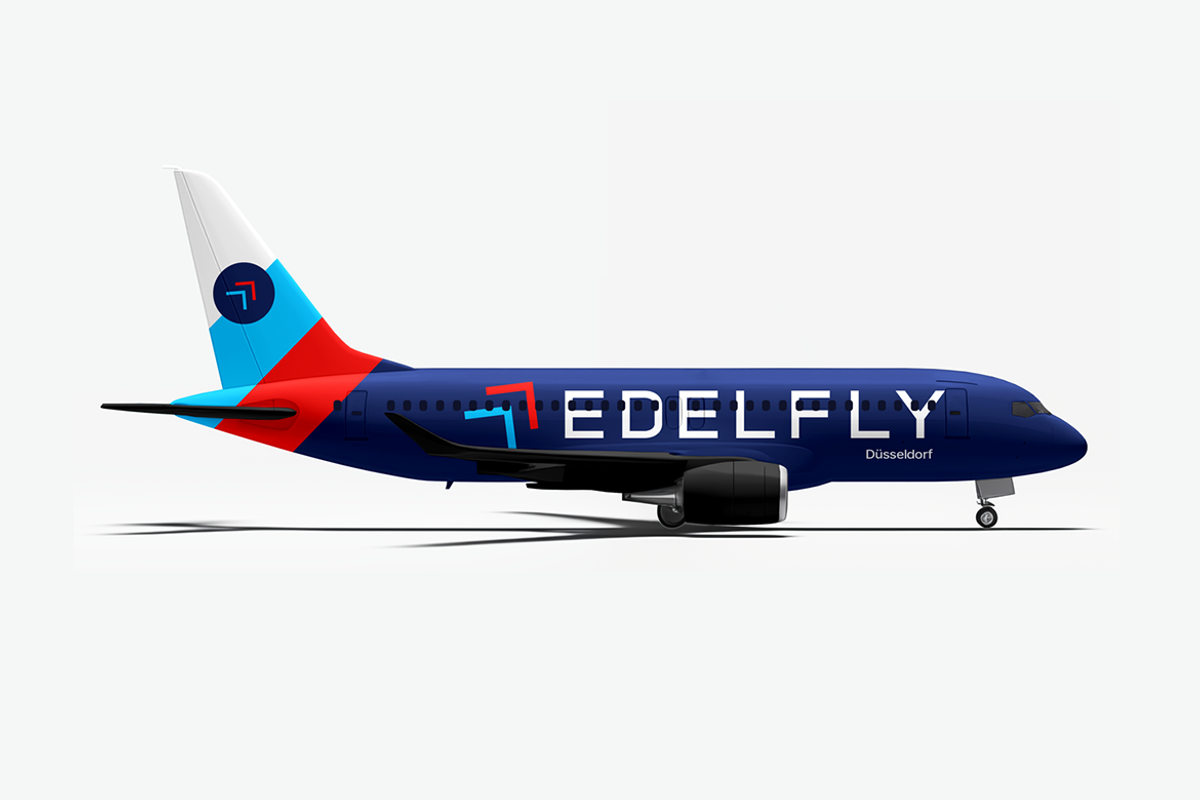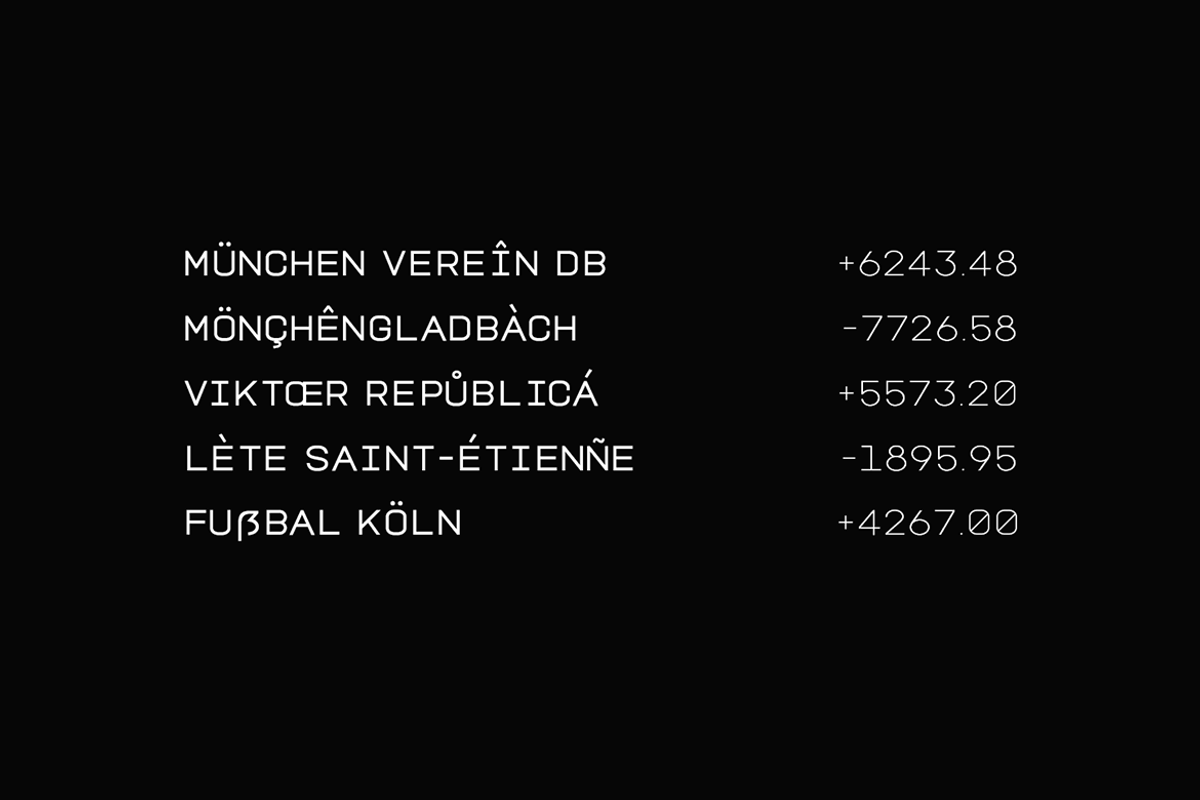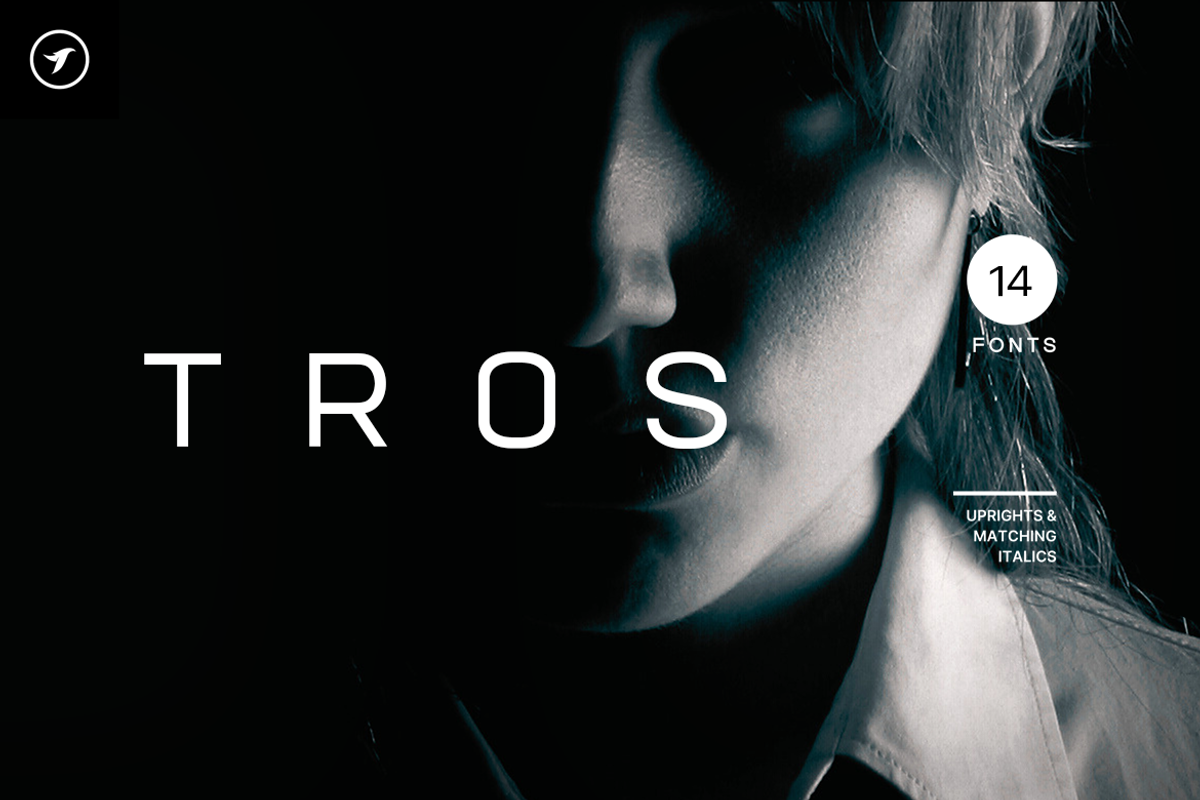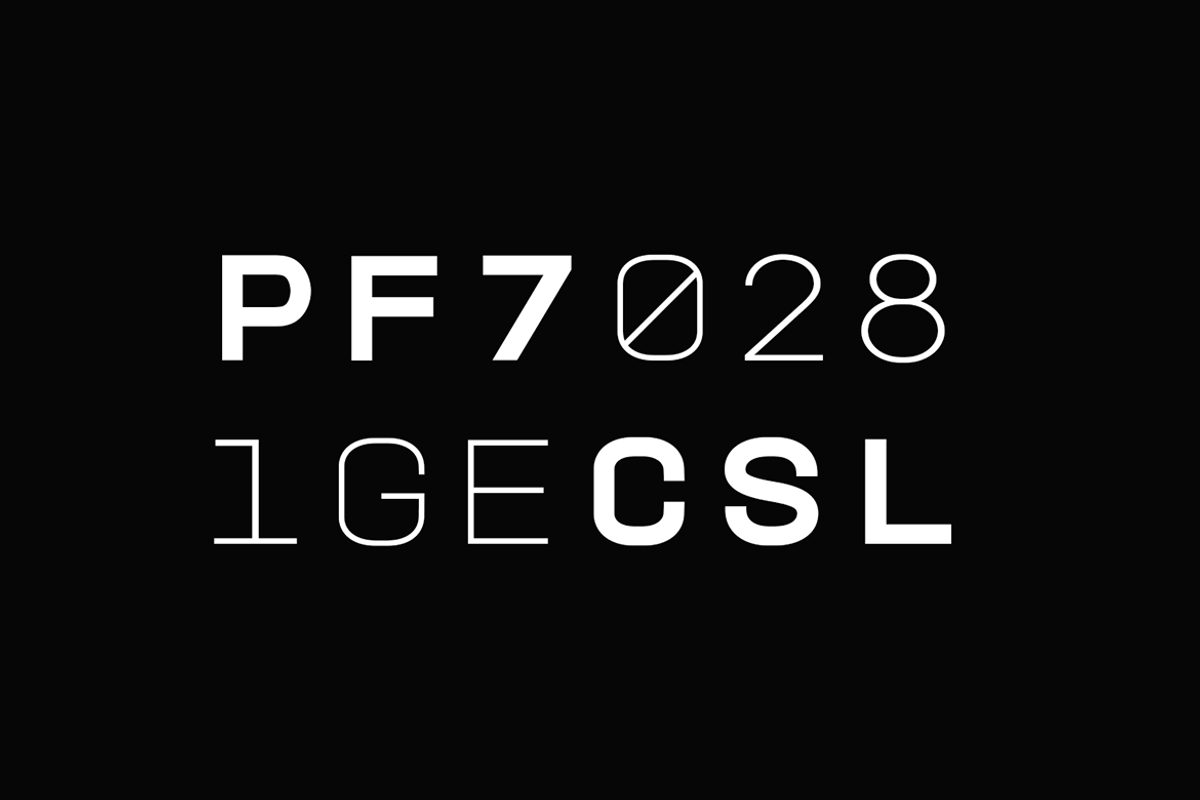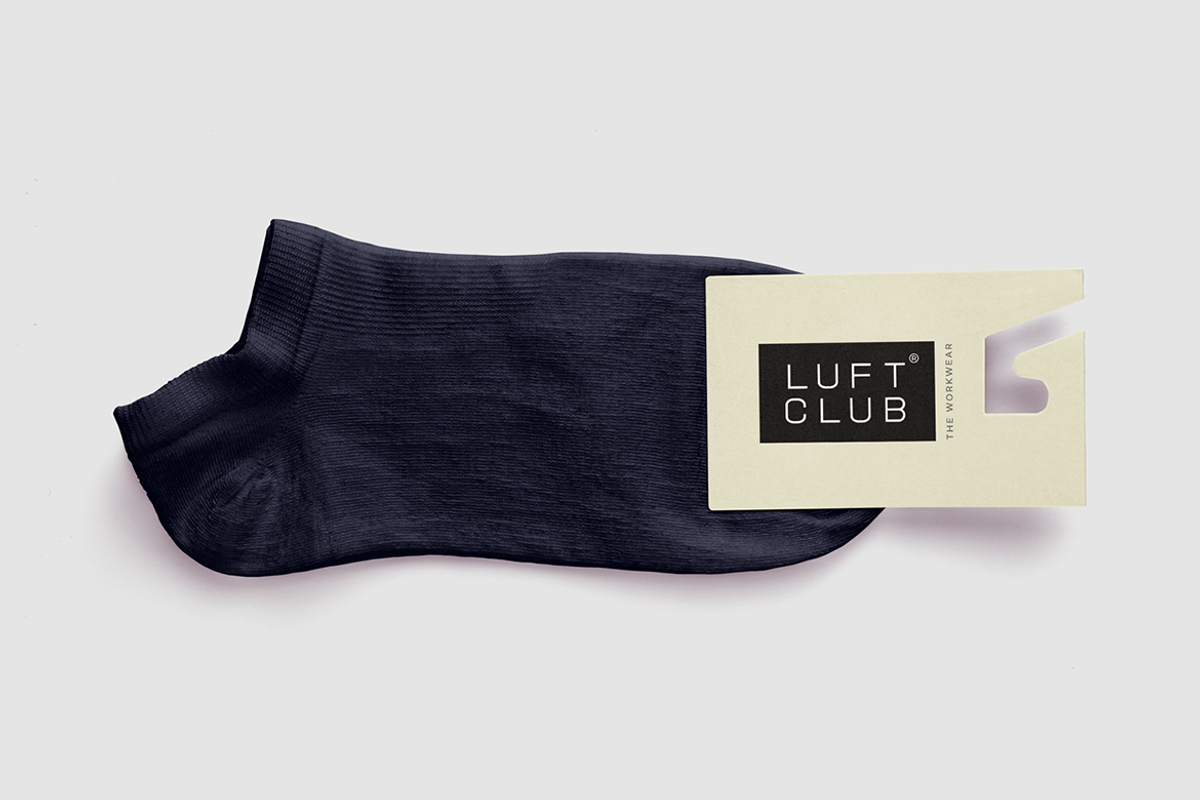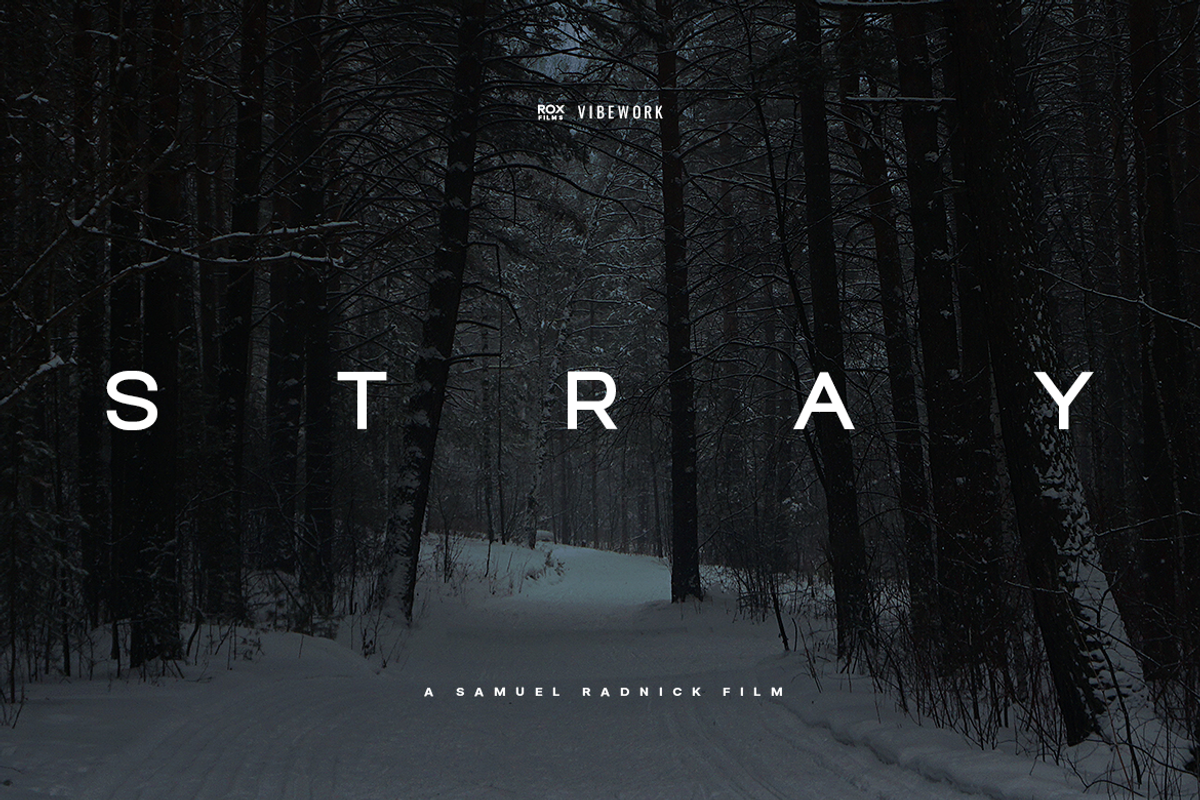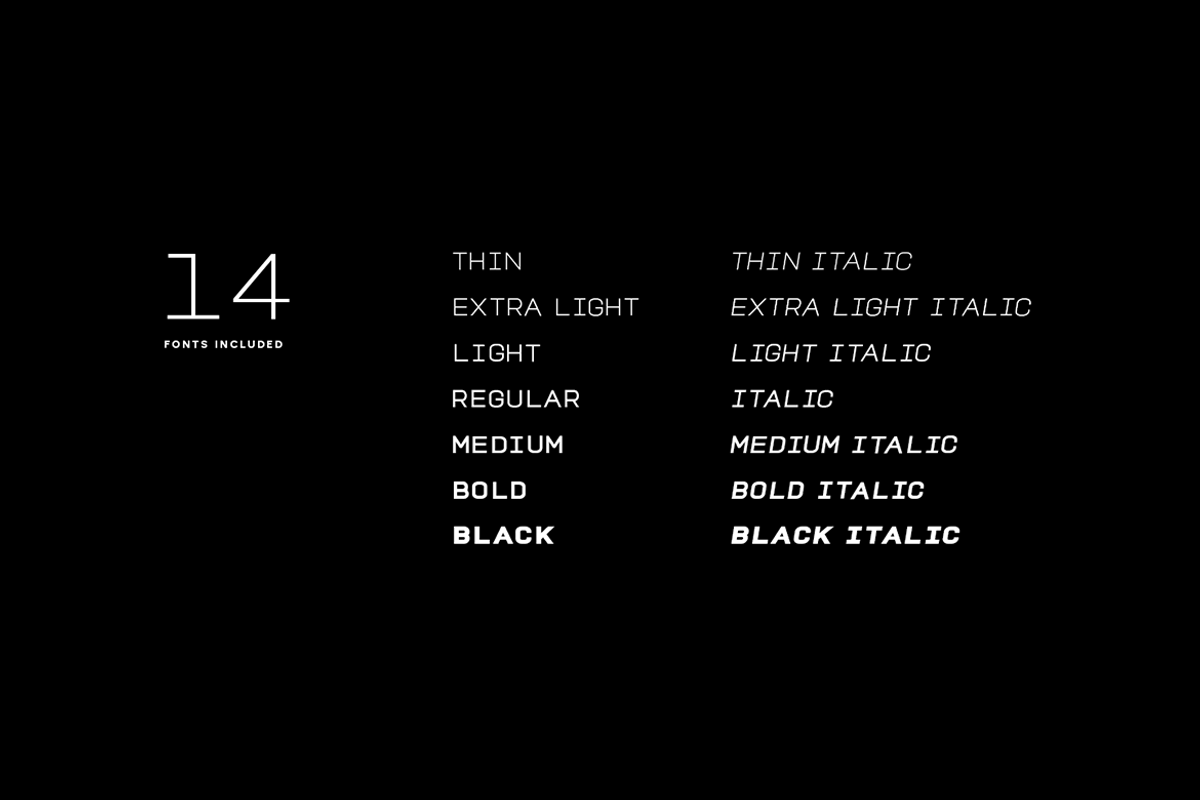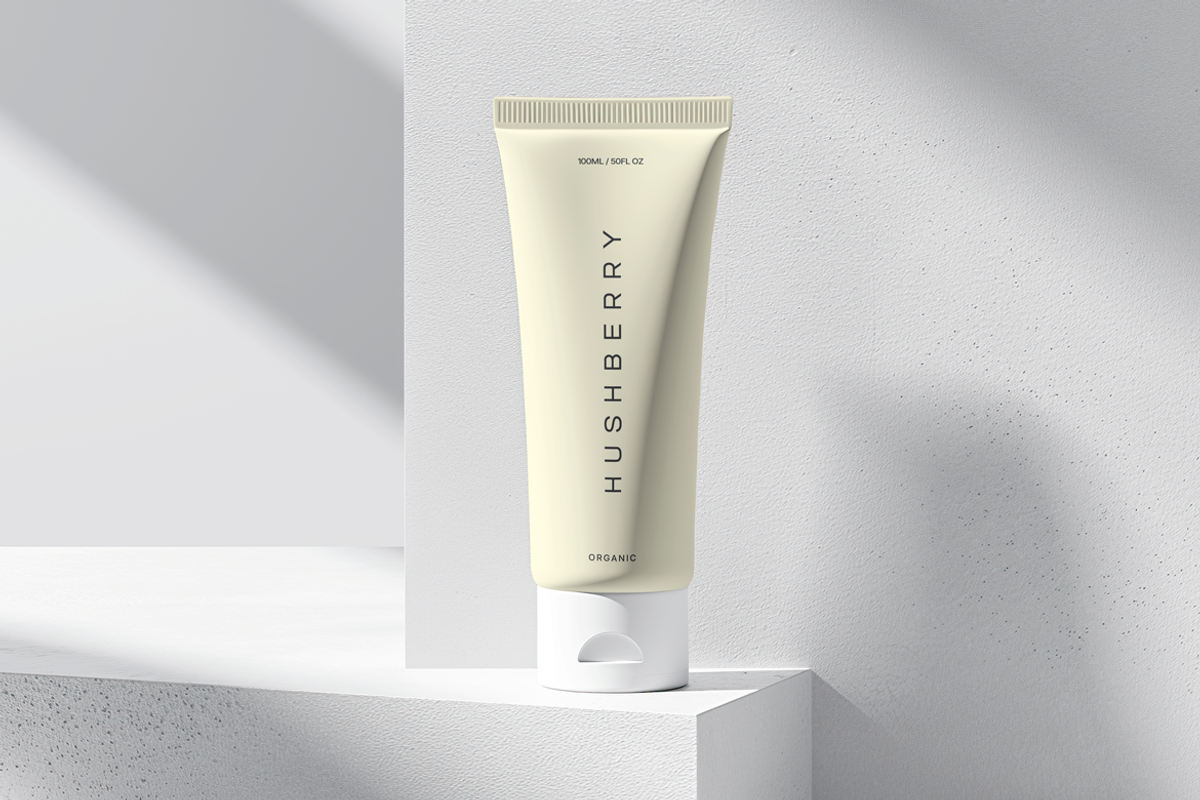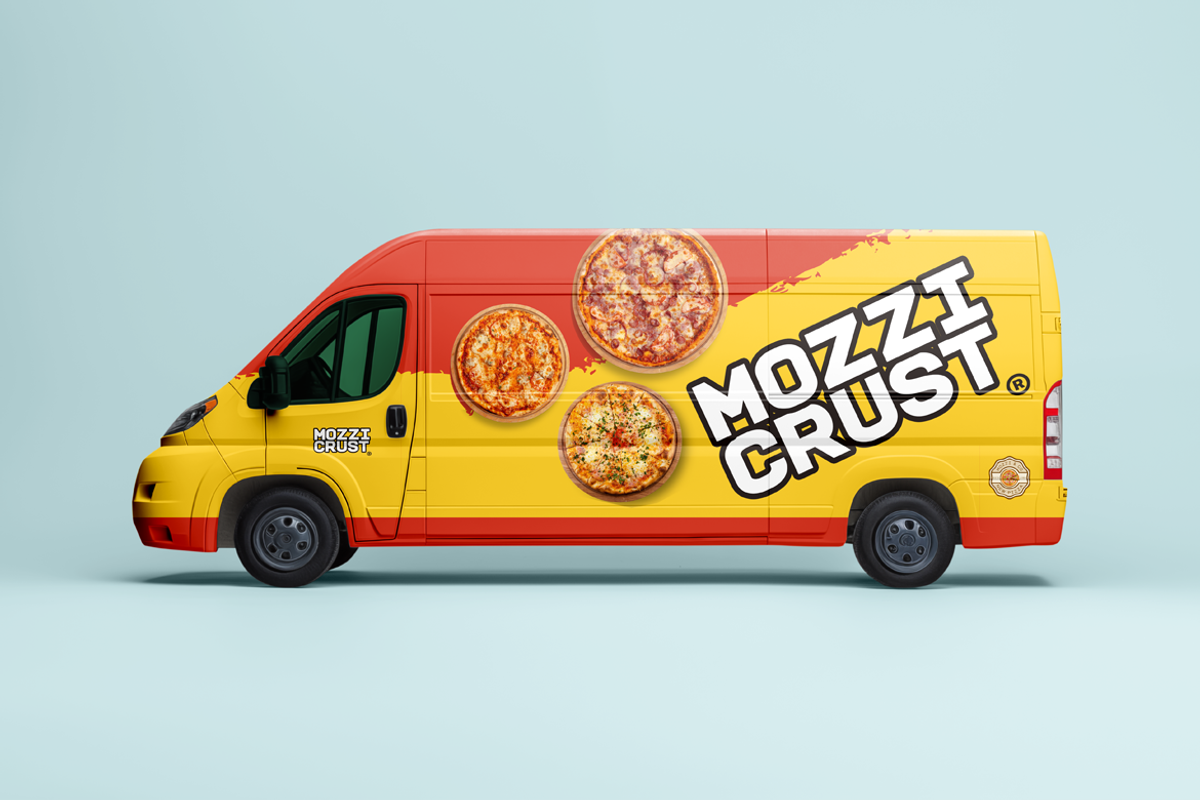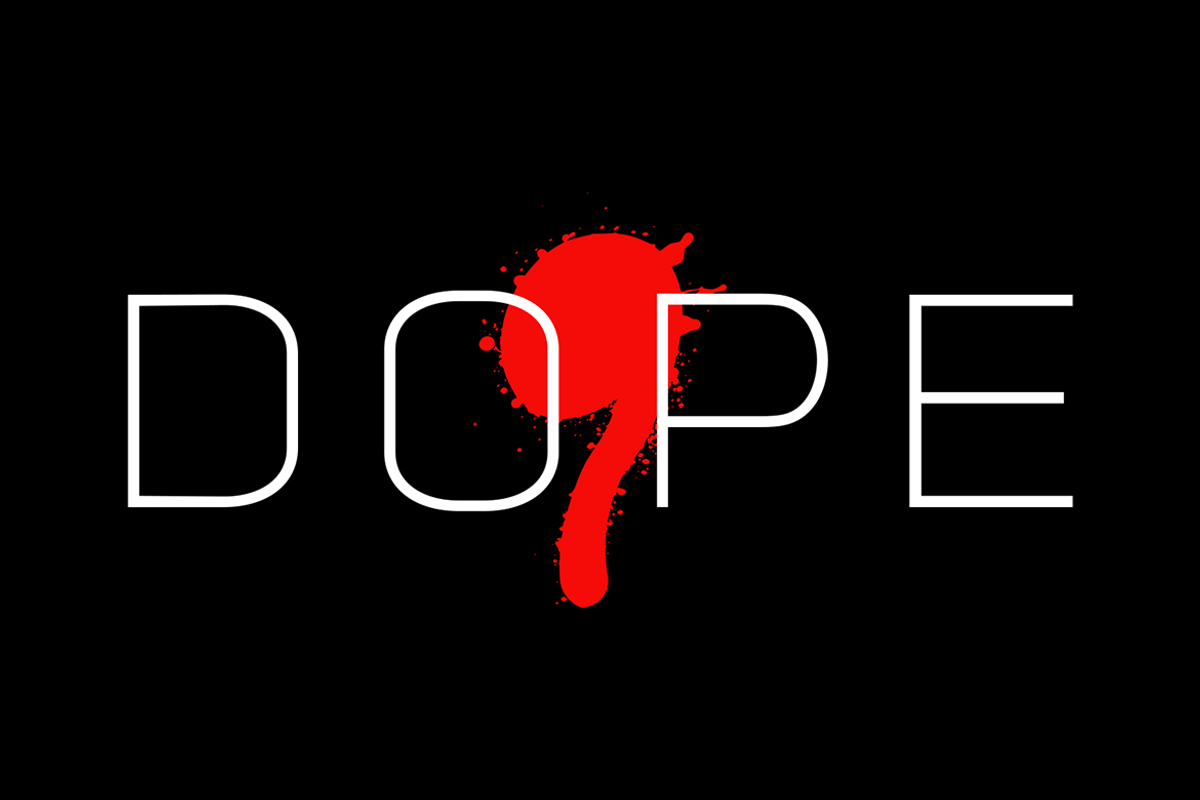
TROS - Unique Display Font Family
ABOUT THE FONT FAMILY:
TROS is a unique and modern font family that features a Sans Serif/Display/All-Caps style. This font family stands out due to its unique and distinctive design. It is best suited for creating branding, logotypes, headlines, corporate identities, and marketing materials for both web and print. When used for minimal designs, TROS is particularly effective.
Thanks to its efficient letter spacing options, this versatile font offers endless possibilities for modern and minimalist designs, including logos, headlines, and identities. Please see the included demo graphics to get an idea about the capability of this typeface when used for branding and marketing material design. To get a better idea of the capabilities of this font, please refer to the included demo graphics.
TROS font family comes with 14 fonts, including five upright weights (THIN / EXTRA LIGHT / REGULAR / MEDIUM / BOLD / BLACK) as well as Italic versions of all five weights. Each weight includes extended language support including Western European & Central European sets. A total of 250 glyphs are included.
TROS font family includes a collection of 14 fonts in total, with seven upright weights and Italic equivalents of all seven weights as follows:
- Thin
- Thin Italic
- ExtraLight
- ExtraLight Italic
- Light
- Light Italic
- Italic
- Medium
- Medium Italic
- Bold
- Bold Italic
- Black
- Black Italic
250 GLYPHS INCLUDED:
Handcrafted and designed with powerful OpenType features in mind, each weight includes extensive language support with Western European, Central European, and South Eastern European sets. A total of 250 glyphs are available.
EXTENSIVE LANGUAGE SUPPORT:
Afrikaans • Albanian • Asu • Basque • Bemba • Bena • Catalan • Cebuano • Chiga • Cornish • Corsican • Danish • Dutch • English • Estonian • Filipino • Finnish • French • Friulian • Galician • German • Gusii • Ido • Indonesian • Interlingua • Interlingue • Irish • Italian • Javanese • Jju • Kabuverdianu • Kalaallisut • Kalenjin • Kinyarwanda • Kurdish • Ligurian • Lojban • Lombard • Low German • Luo • Luxembourgish • Luyia • Machame • Makhuwa • Makhuwa-Meetto • Makonde • Malagasy • Malay • Manx • Morisyen • North Ndebele • Northern Sotho • Norwegian Bokmål • Norwegian Nynorsk • Nyanja • Nyankole • Occitan • Oromo • Portuguese • Rejang • Romansh • Rombo • Rundi • Rwa • Samburu • Sango • Sangu • Sardinian • Scottish Gaelic • Sena • Shambala • Shona • Soga • Somali • South Ndebele • Southern Sotho • Spanish • Sundanese • Swahili • Swati • Swedish • Swiss German • Taita • Taroko • Teso • Tsonga • Tswana • Vunjo • Walloon • Welsh • Western Frisian • Wolastoqey • Xhosa • Zhuang • Zulu
Scripts: Latin